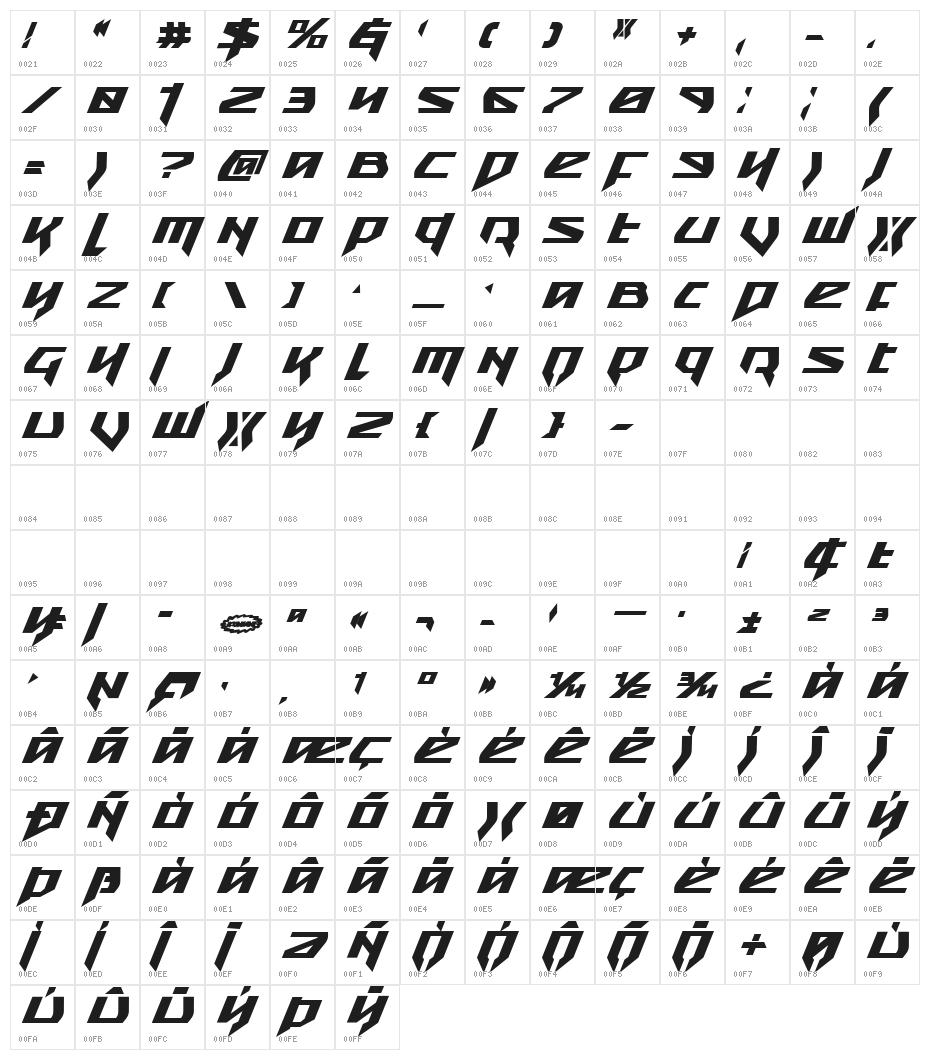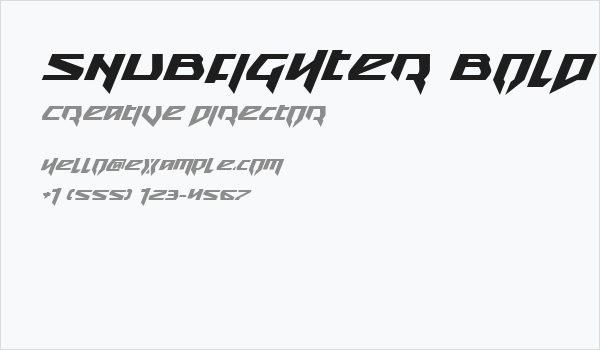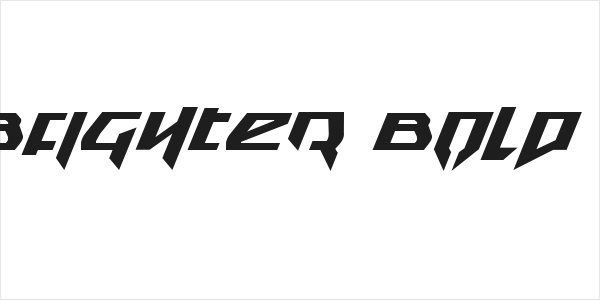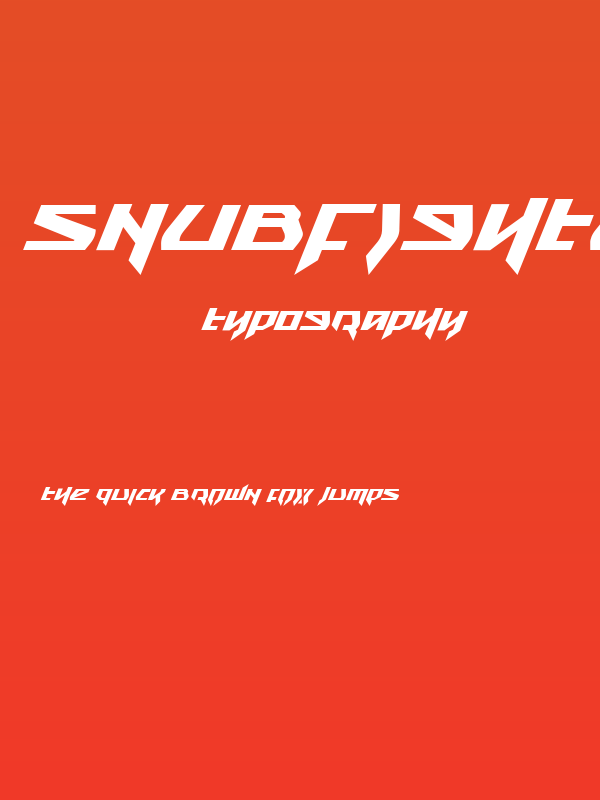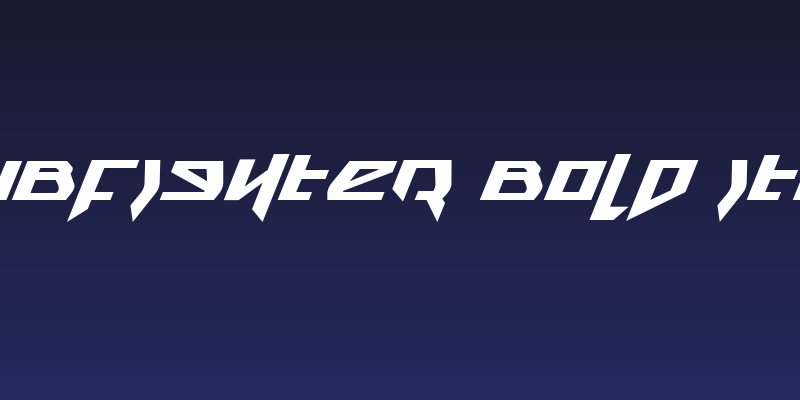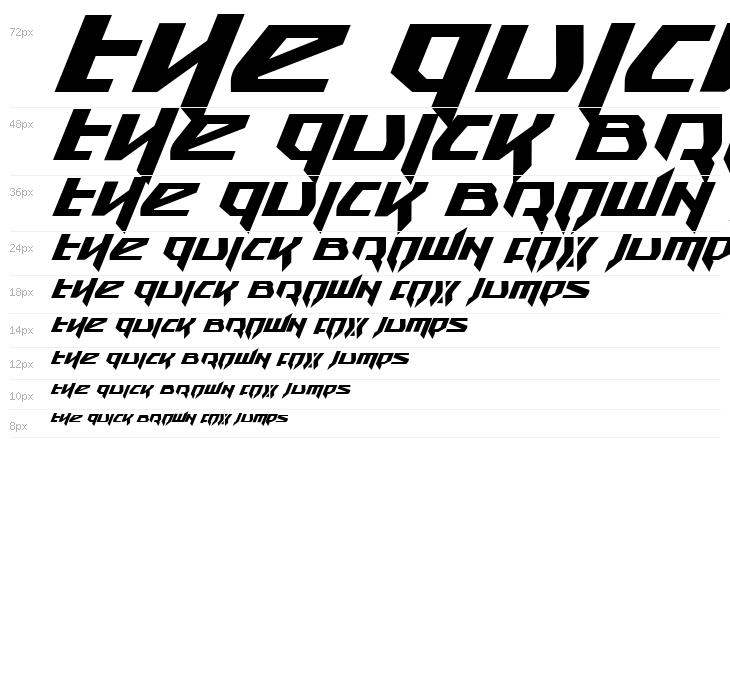
Snubfighter Bold Italic Font
Snubfighter Bold Italic Description
This font features a bold and italicized style with sharp, angular edges and a futuristic aesthetic. The characters are designed with a dynamic, forward-leaning slant, giving a sense of motion and speed. The uppercase and lowercase letters maintain a consistent geometric structure, while the numerals and special characters echo the same sharp, edgy design. The overall appearance is striking and modern, making it ideal for projects that require a bold statement.
| Proposed Projects | Ideal for sci-fi themed posters, video game titles, and edgy branding projects. |